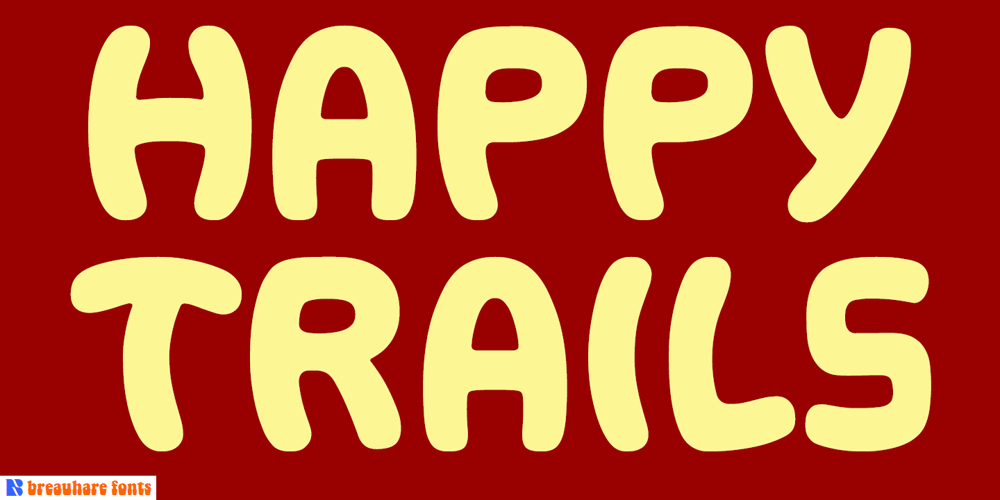
Happy Trails Font Family was designed by Harry Warren and published by Breauhare. Happy Trails contains 1 styles and family package options. Happy Trails is a font that is based on the lettering (all upper case) used on most Trailways buses from 1936 through the very early 1960s. It also has a newly created set of lower case letters which never existed before. The font was tweaked and digitized by Bob Alonso & John Bomparte. Happy Trails has not only the flavor of the early Trailways buses but also a folksy, Western feel to it, and it’s even a bit silly or goofy, a fun font that has a variety of uses.